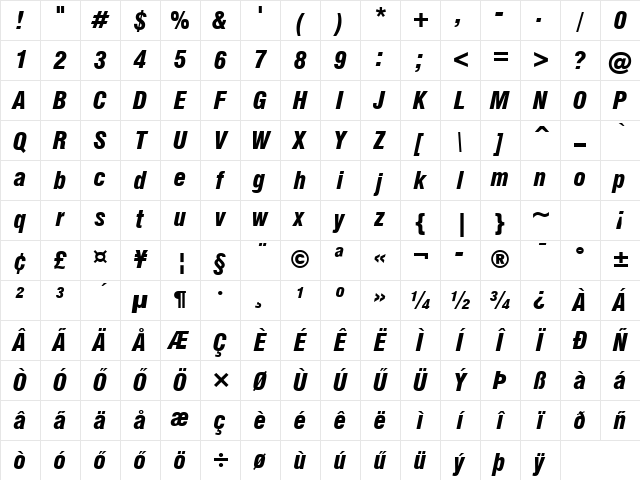
Hu_Swiss 733 BlkCn WS Italic
Complete Hu_Swiss 733 BlkCn WS Italic glyph index. Displaying only characters natively supported by Hu_Swiss 733 BlkCn WS Italic font.
Design Context for Hu_Swiss 733 BlkCn WS
Hu_Swiss 733 BlkCn WS is a composed and adaptable typeface that performs quietly and consistently across a wide range of design contexts. The slanted form adds forward momentum and visual energy.
Pro Tip: Use Hu_Swiss 733 BlkCn WS for emphasis, pull quotes, and subheadings where its slanted energy can add rhythm to the layout.